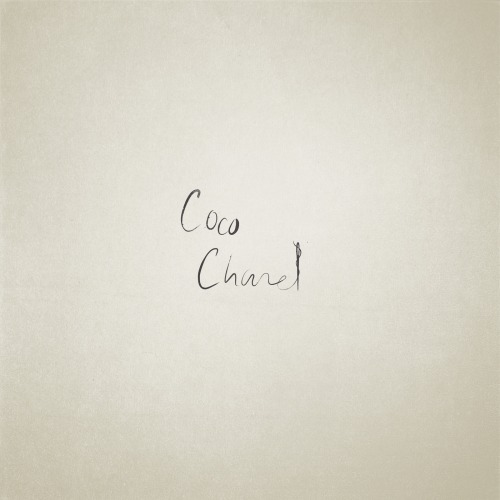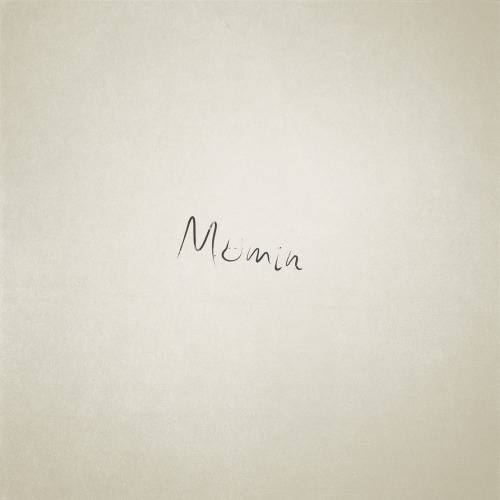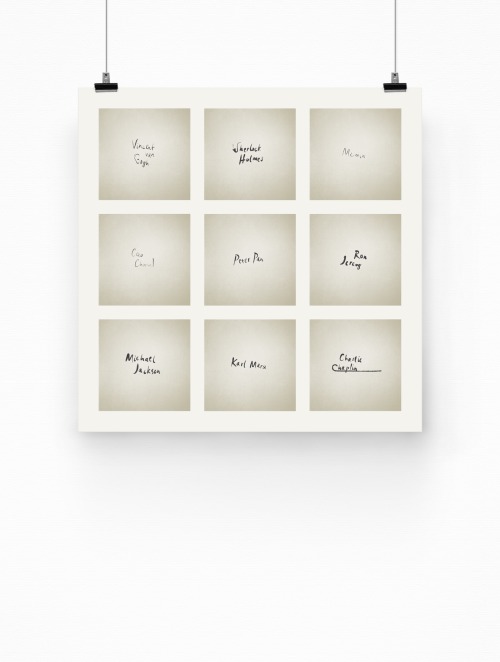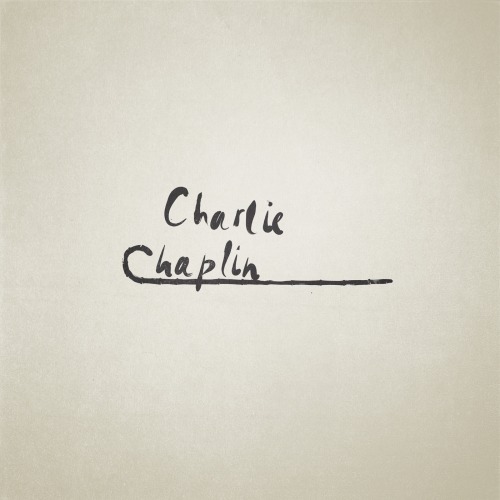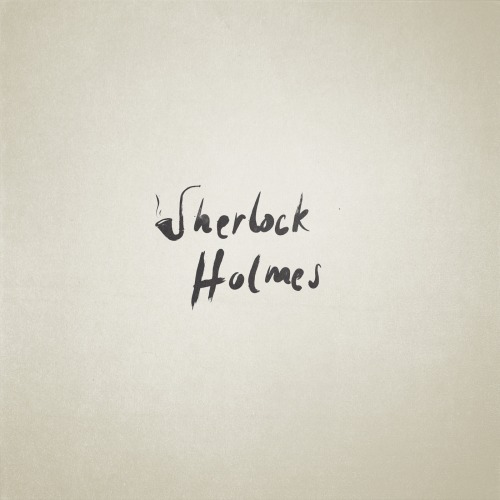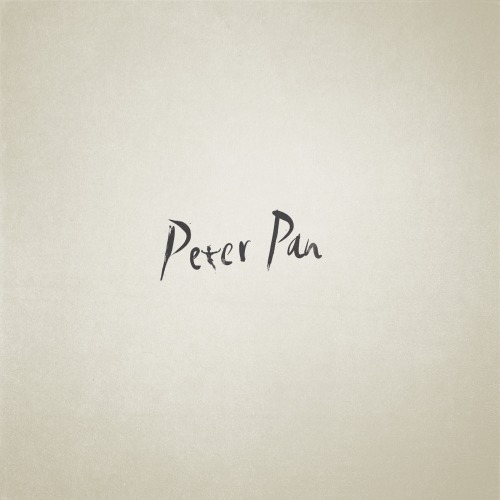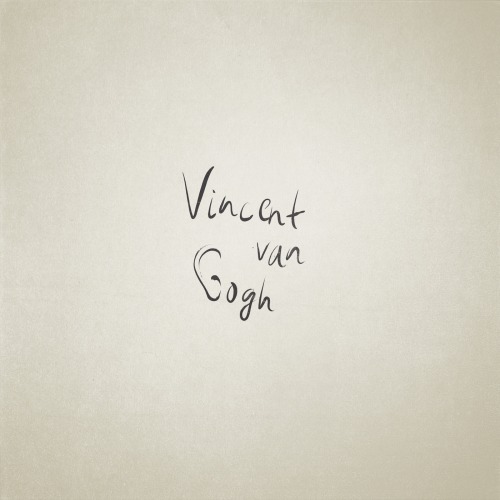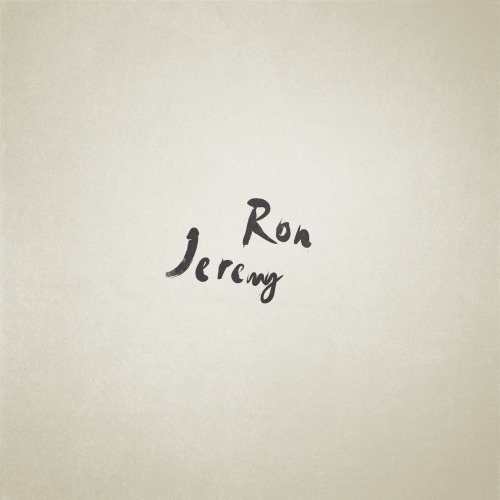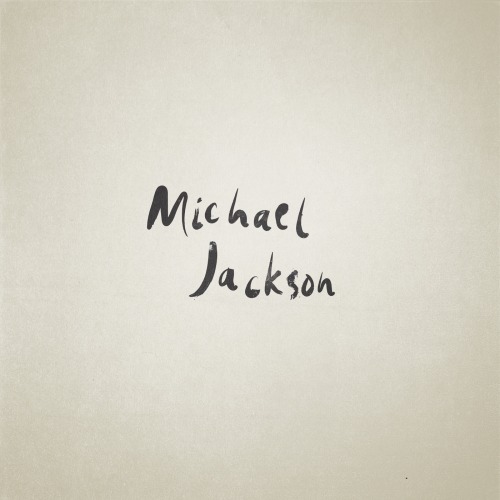
Spot the hidden tributes in this fun type project
These designs pay homage to some well-loved characters.
Typography comes in all shapes and sizes – obviously – but here at Creative Bloq, we love it when a designer puts a unique spin on their productions. Swedish illustrator Patrik Svensson has worked for brands like IKEA, Sony and Starbucks but it's this personal project that's caught our attention.
Associating a visual element with a variety of famous names, both fictional and real, the element is then cleverly integrated into the name typography. From Peter Pan to Charlie Chaplin to Coco Chanel, the tiny tributes are as charming as they are inventive.